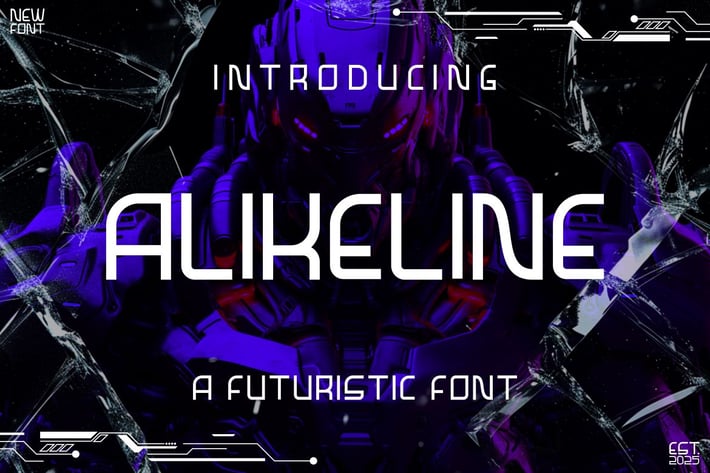
Alikeline - Futuristic Font
Introducing Alikeline , a cool and elegant Futuristic Font. Elegant font feel. This font gives you a beautiful and modern atmosphere. suitable for posters, book covers, cards, merchandise, etc.
Feature
+ Uppercase
+ Lowercase
+ Punctuation
+ Numbe